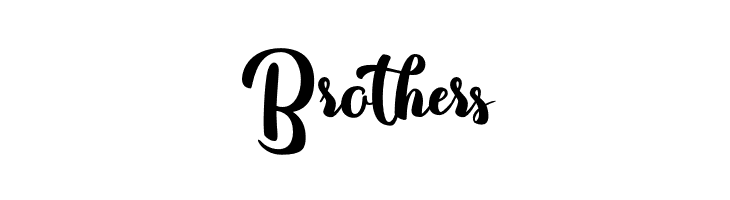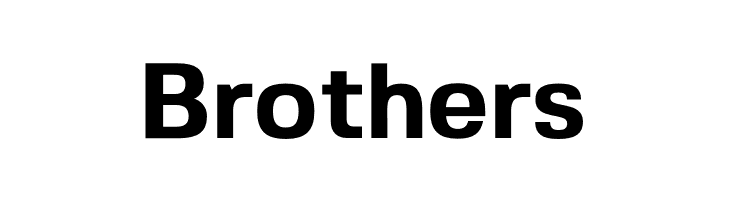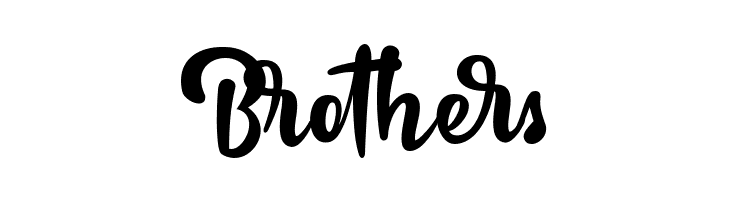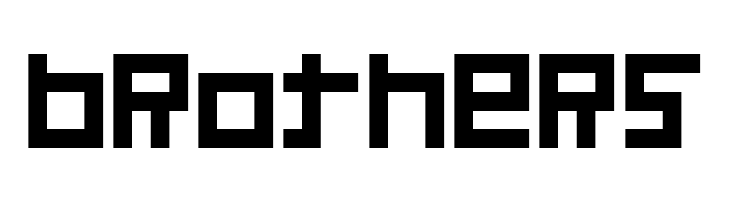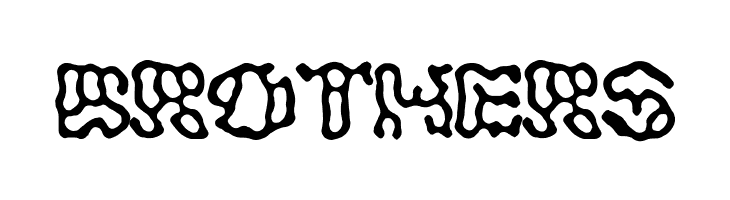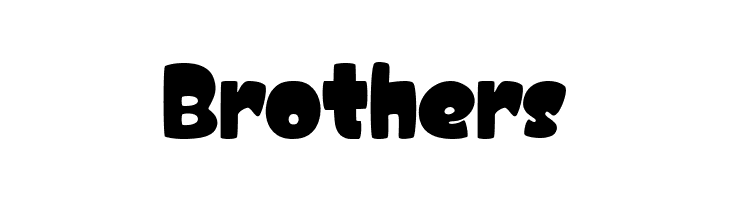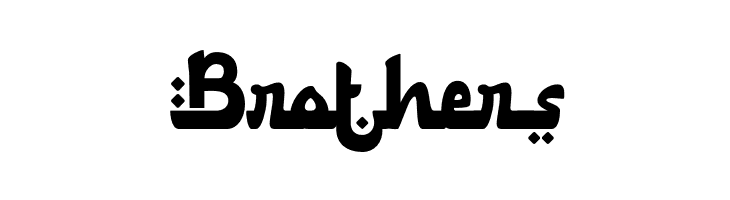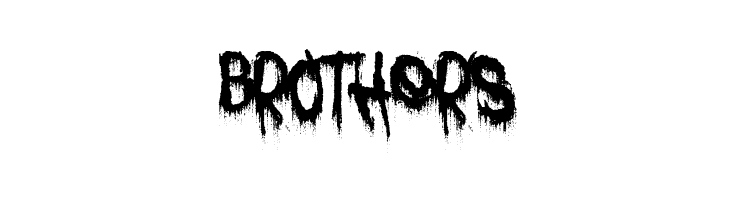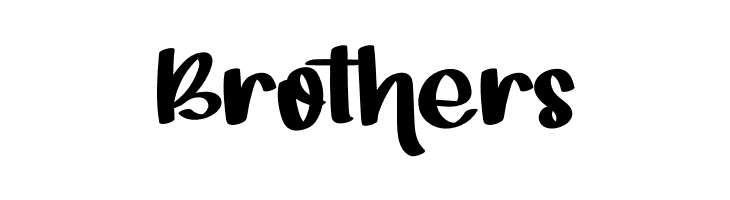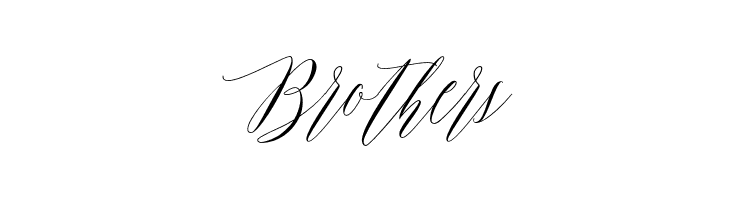
Abstract, fish-themed decorative font with geometric symbols.
A whimsical, decorative font with fish hook-inspired elements.
A whimsical and playful script font with flowing, interconnected letters.
A playful, bold, and handwritten-style font with rounded, dynamic characters.
A dynamic, cursive script font with a flowing, handwritten style.
A bold, playful font with thick, rounded characters and a whimsical style.
A bold, playful handwritten font with thick strokes and a lively, casual style.
A bold, brush-style font with a dynamic and artistic appearance.
A bold, flowing script font with a playful and energetic style.
A bold, energetic script font with smooth, flowing strokes.
A playful, wavy font with bold, textured characters and a hand-drawn feel.
A graceful, handwritten script font with elegant, flowing strokes.
A dynamic and elegant script font with flowing curves and bold strokes.
A modern, stylish handwritten font with fluid, elegant strokes.
A bold, grunge-style font with a dripping, distressed effect.
A bold, flowing script font with dynamic, connected characters.
A playful, cursive script font with interconnected characters and elegant loops.
A bold, playful script font with smooth, flowing strokes.
A modern serif font with high contrast and elongated letterforms.
An elegant script font with fluid, interconnected strokes and high contrast.
A bold, decorative font with geometric accents and a modern flair.
A bold, brush-style font with dynamic, hand-painted strokes.
A pixelated, retro-style font with a blocky, 8-bit design.
Bold, playful script font with a handwritten style.
A playful, whimsical handwritten font with fluid, continuous strokes.
A pixelated, monospaced font with a retro digital aesthetic.
A bold, modern sans-serif font with thick strokes and geometric structure.
A bold, oblique sans-serif font with a dynamic and modern style.
A bold, modern sans-serif font with clean lines and excellent readability.
A bold, oblique font with a modern and dynamic style.
A bold, oblique sans-serif font with a modern and dynamic style.
A clean, modern sans-serif font with geometric shapes and uniform strokes.
A sleek, modern sans-serif font with an oblique style and light weight.